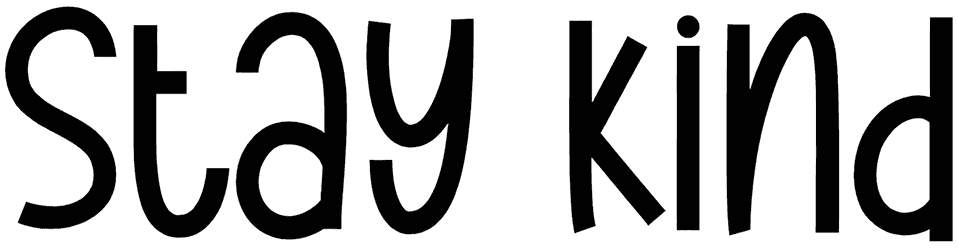
Stay Kind Font
If you’re looking to create a sense of relatability and friendliness and want to connect with your audience on a deeper level, Stay Kind gives you a voice that’s off the page.
This kids font embraces storytelling’s power and offers two styles to explore serious worlds in meaningful ways. So why not fancy your next poster, ad, or logo with this font? It’s a choice that will make your work stand out and bring a smile to everyone who sees it.